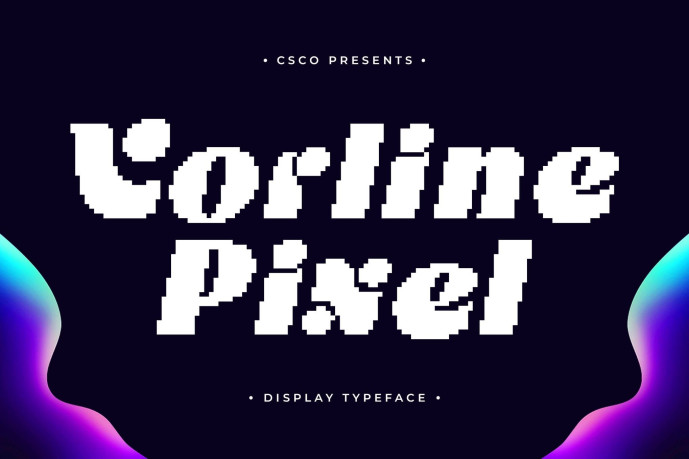
Vorline Pixel Font
Designer: craftsupplyco
Vorline Pixel Font – Where Art Nouveau Meets Digital Funk: Bold Art Nouveau Font with Pixel Finish. A Fusion of Flow and Digital Edge This is takes inspiration from the bold curves and ornamental flow of Art Nouveau, reimagined with a contemporary digital touch. Its funky, energetic strokes exude movement and rhythm, while the pixel detailing introduces a modern, playful edge. The result is a font that feels both artistic and futuristic.
Dynamic Curves for Expressive Design The sweeping curves of font create a strong sense of motion and personality. Each letterform bursts with energy, giving your designs a unique visual rhythm. This dynamic quality makes it perfect for projects that need to stand out whether it’s a poster, headline, or brand identity with bold character.
Pixel Detailing for Modern Vibrancy What sets fonts apart is its pixel finish, which transforms its decorative shapes into vibrant digital expressions. The pixel texture adds depth and contrast, bridging the gap between nostalgic retro styles and contemporary design. This detail makes it ideal for creative works that embrace both history and innovation.